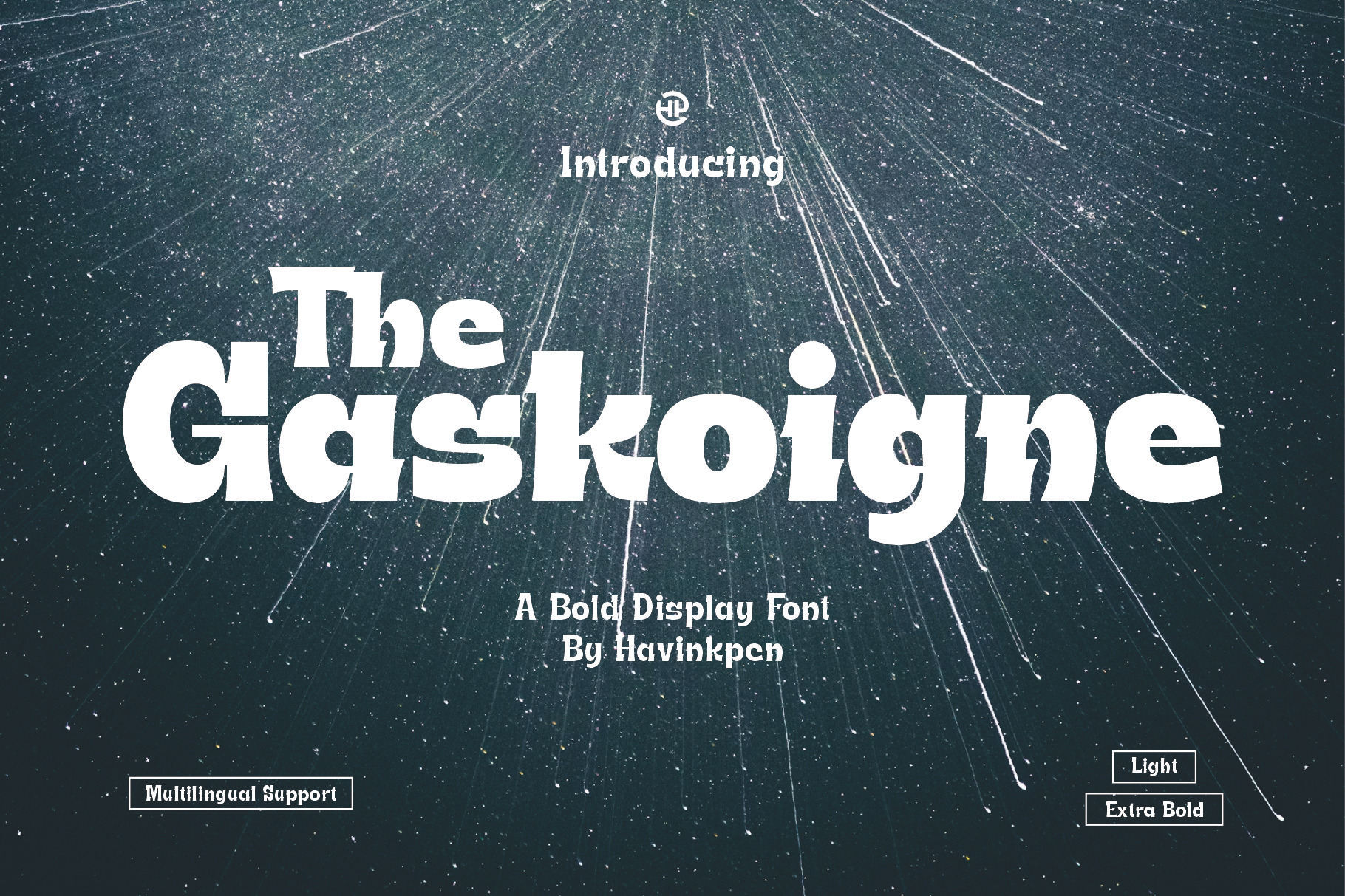
GASKOIGNE | Display Font
THE GASKOIGNE is a Display font published and design by Havinkpen Studio Inspired by the big board sign in every corner of the town. well The Gaskoigne is strong, bold and very heavy typeface for titlings and captions. Try this font on any surface it will looks, Stunning!!